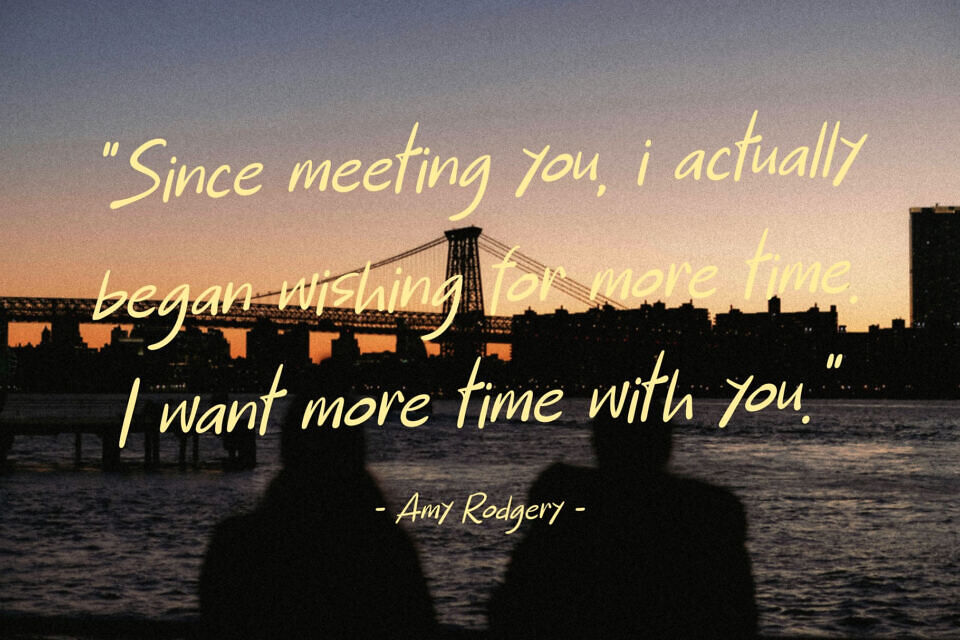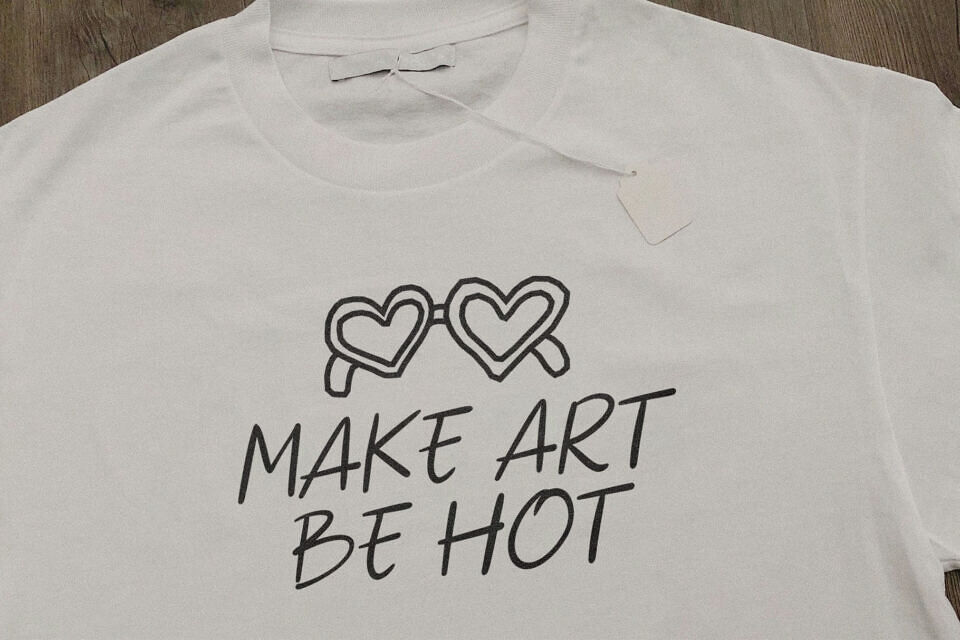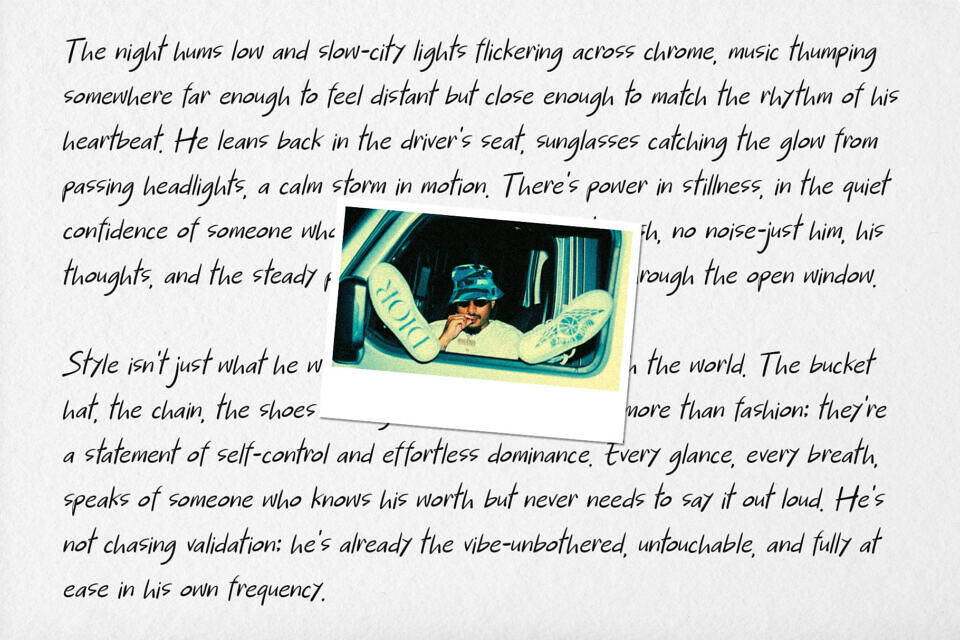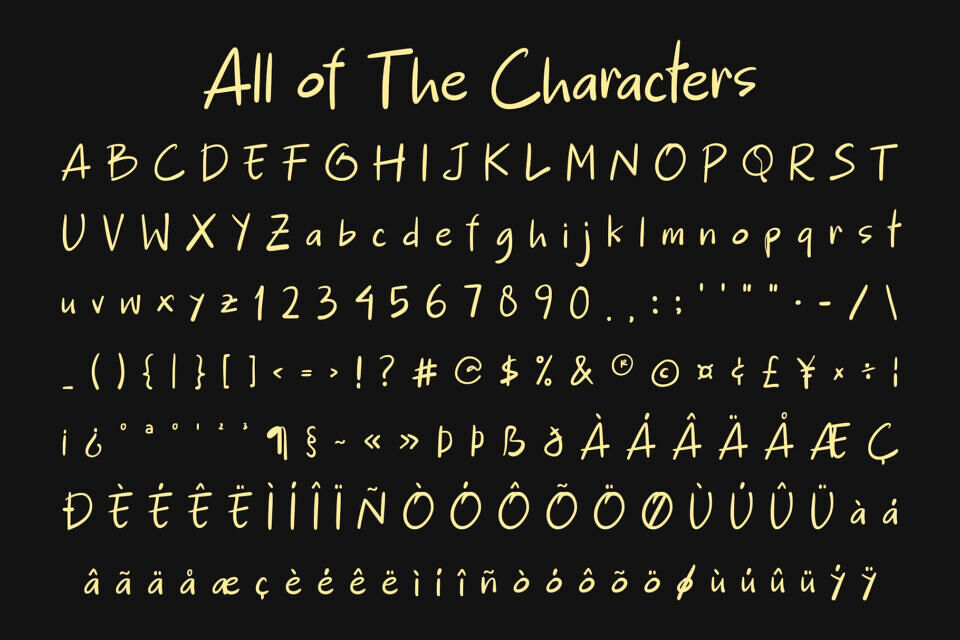
This carefree handwritten font blends funky charm with a sleek sans serif aesthetic, delivering confidence, creativity, and youthful energy. Its smooth strokes and balanced rhythm create a lively, modern flow—perfect for trendy designs, social media graphics, and lifestyle branding.
Combining relaxed elegance with playful flair, it brings authenticity and approachability to every project. Ideal for apparel, posters, and digital content, this font infuses your work with effortless style and personality, making each design feel expressive, vibrant, and perfectly on-trend.